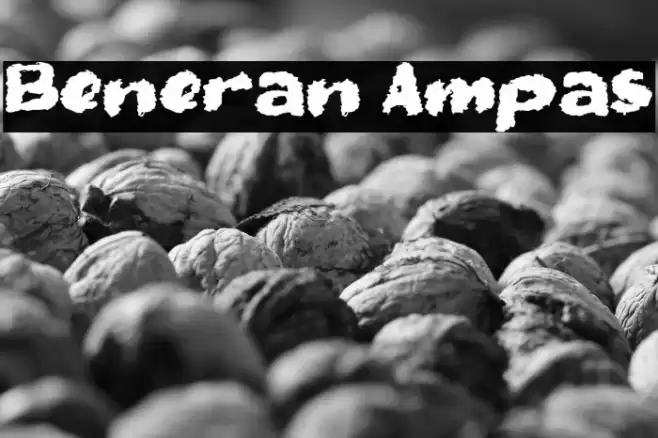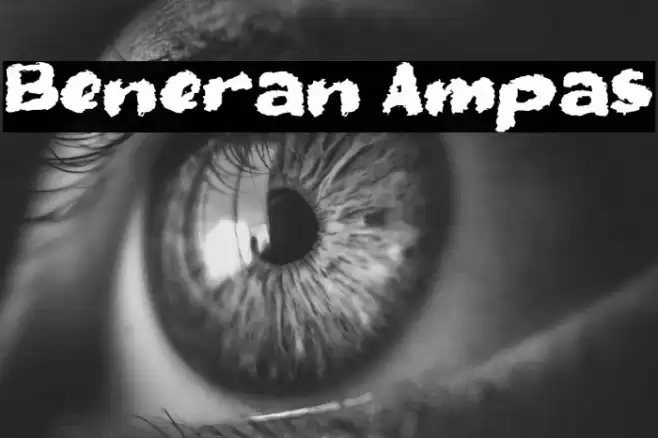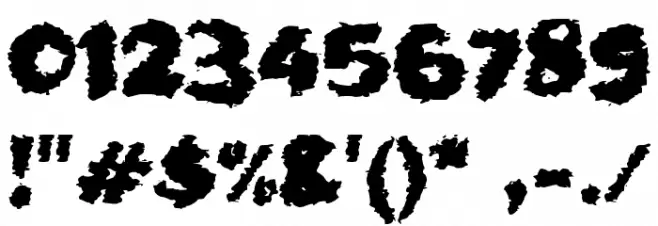
Beneran Ampas Font
Beneran Ampas Description
This font features a bold and rugged appearance with a textured, distressed effect that gives it a unique and edgy look. The characters are thick and irregular, creating a sense of movement and energy. The uppercase and lowercase letters maintain a consistent style, with jagged edges and a hand-crafted feel. Numbers and special characters follow the same design, making them cohesive with the overall aesthetic. This font is perfect for projects that require a bold statement or a grunge-inspired theme.
A bold, textured font with a rugged, distressed style from Uncategorized fonts.
- Proposed Projects: Ideal for album covers, posters, streetwear branding, or any project needing a bold, edgy aesthetic.